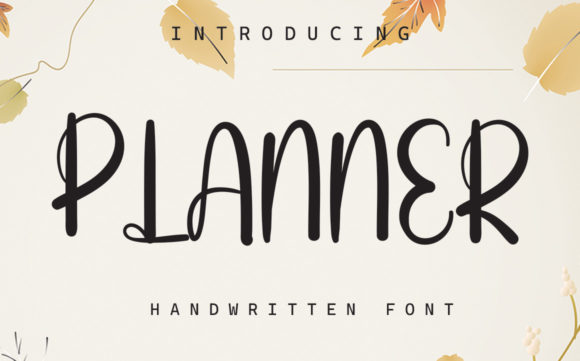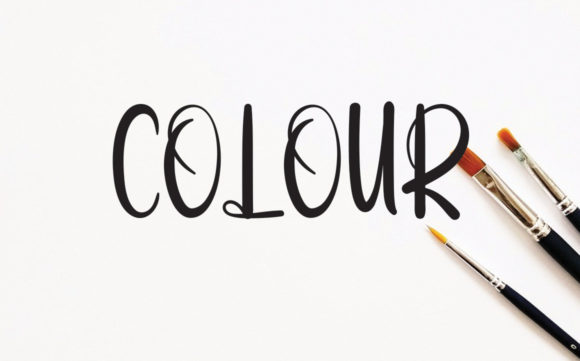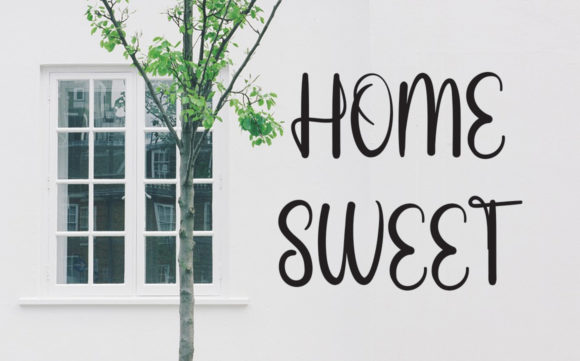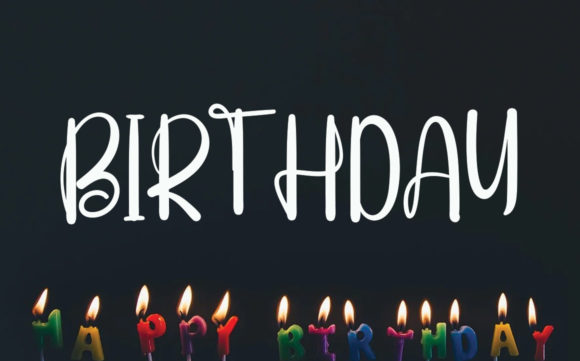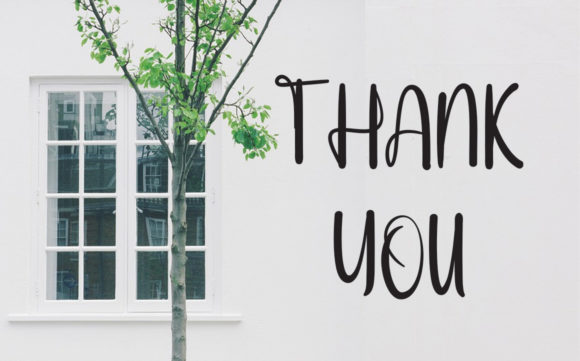
Planner Font
About Planner Font
Planner font is a stunning embodiment of grace and fluidity, presenting itself as a captivating script font suitable for a plethora of design ventures. Its exquisite handwritten style imparts a sense of elegance and sophistication, making it an ideal choice for a diverse array of projects across various mediums.
Whether adorning the walls of a chic boutique or gracing the pages of elegant wedding invitations, Planner font exudes an undeniable charm that captivates viewers. Its flowing strokes and harmonious curves lend an air of refinement to social media post logos, seamlessly integrating with modern digital aesthetics.
In the realm of advertising, Planner font stands as a beacon of creativity, adding an element of artistic flair to product packaging and designs. Its versatility knows no bounds, enhancing the visual appeal of labels, photographs, and watermarks with effortless finesse.
Invitations adorned with Planner font evoke a sense of warmth and intimacy, setting the tone for memorable gatherings and celebrations. Stationery becomes a canvas for creativity, with each handwritten letter bearing the distinctive charm of this remarkable script font.
The allure of Planner font lies not only in its aesthetic appeal but also in its practicality and readability. Its clear legibility ensures that messages are conveyed with clarity and style, enhancing the overall impact of any project it graces.
With Planner font, designers are empowered to infuse their creations with a touch of sophistication and personality. Its adaptability allows it to seamlessly transition between different design contexts, from digital platforms to print media, without losing its inherent charm.
In essence, Planner font transcends the confines of mere typography; it is a symbol of creativity and expression. Its ability to elevate ordinary designs to extraordinary heights makes it an indispensable tool for designers and creatives seeking to leave a lasting impression. Whether embarking on a branding venture or simply adding a touch of elegance to everyday projects, Planner font emerges as a timeless choice, capable of transforming visions into realities with unparalleled grace and beauty.